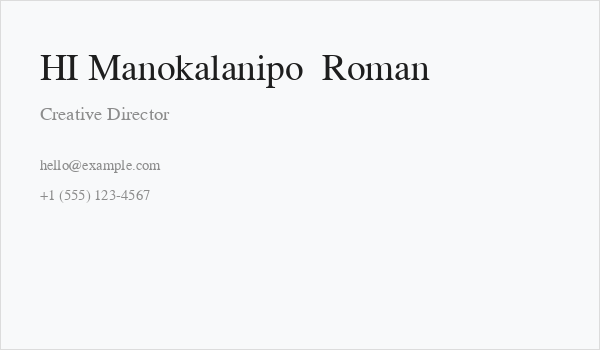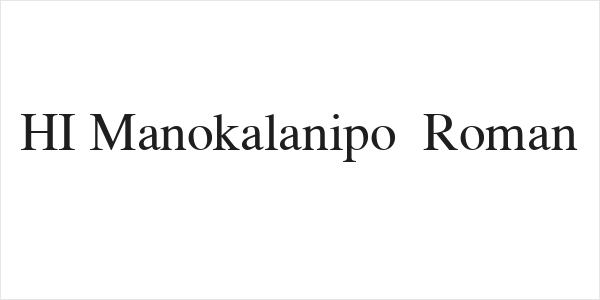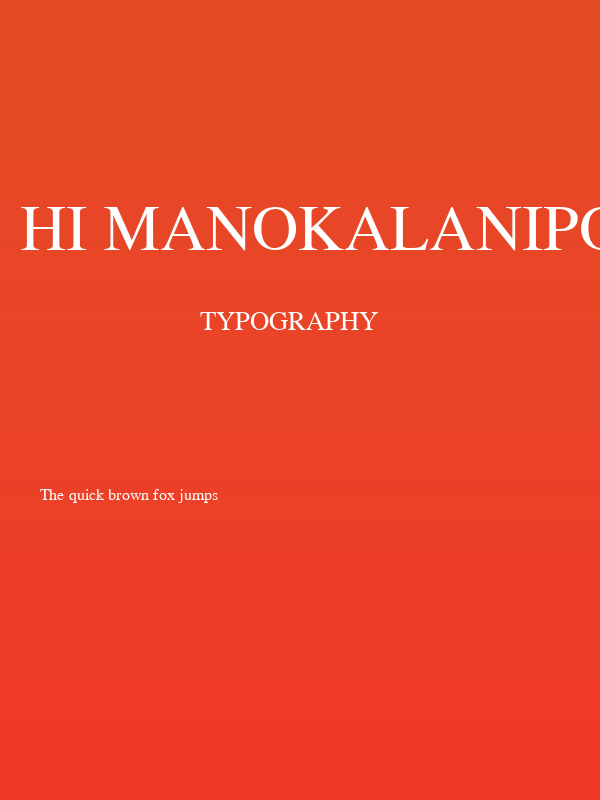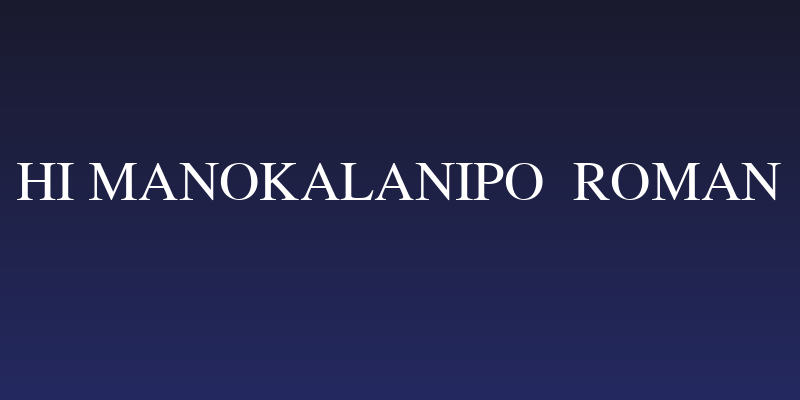
HI Manokalanipo Roman Font
HI Manokalanipo Roman Description
This font exhibits a classic serif style with elegant and refined strokes. The uppercase letters are bold and commanding, while the lowercase letters maintain a balanced and harmonious appearance. The numerals are clear and distinct, ensuring readability. Special characters are designed with precision, adding to the font's versatility. The overall design is sophisticated, making it suitable for formal and professional applications. The serifs are pronounced, contributing to a traditional and authoritative look. This font is ideal for projects that require a touch of elegance and timelessness.
| Proposed Projects | Ideal for book covers, formal invitations, corporate branding, and editorial design. |